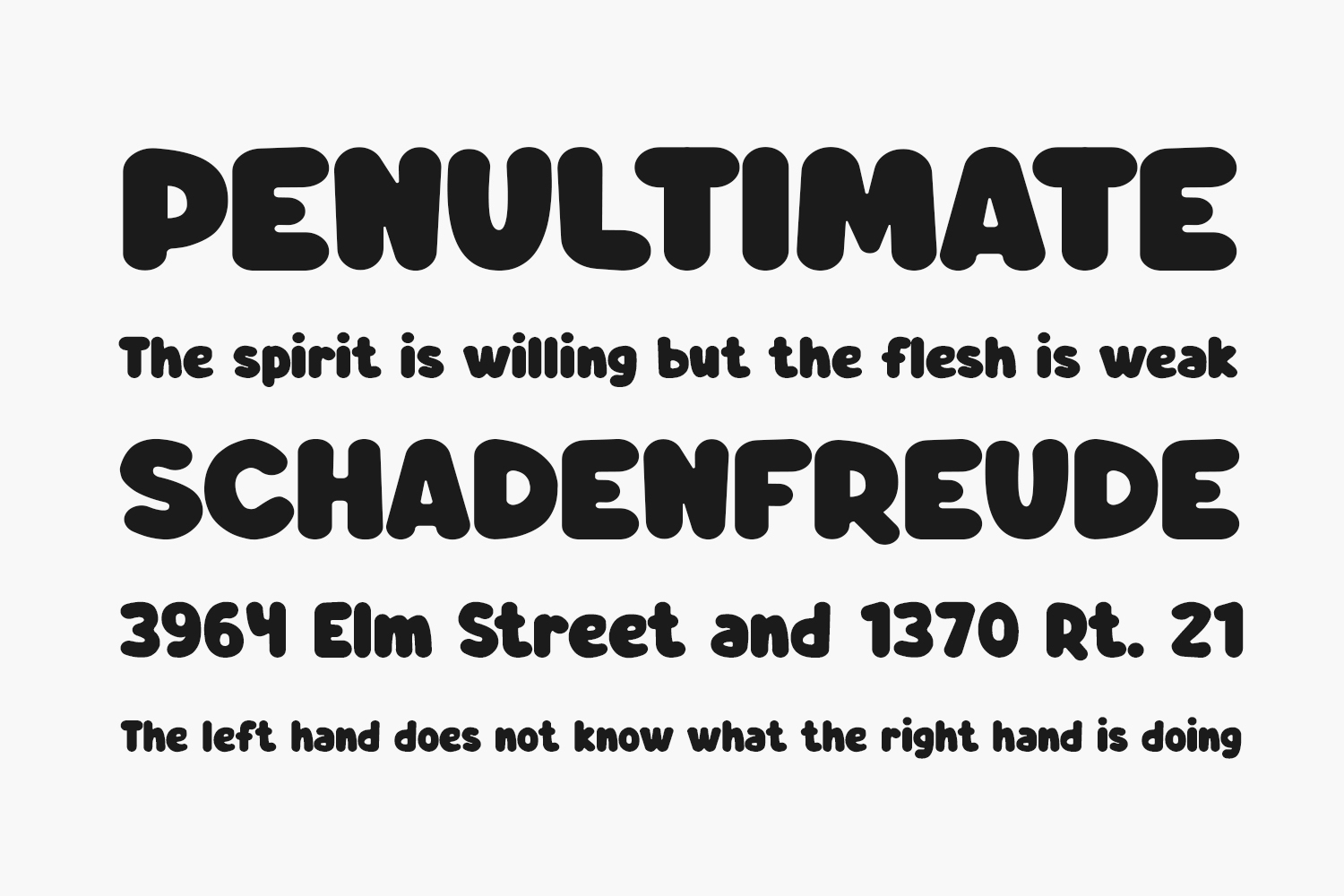
Introducing Bubbly Soda Free Font – the ultimate display font designed to infuse cuteness, friendliness, and playfulness into any project! Tailor-made for children’s books, online games, stationery, school supplies, posters, movie titles, YouTube covers, thumbnails, social media posts, and countless other creative endeavors. Elevate your designs with this delightful font by adding it to your library today, and watch as it sparks your imagination like never before! Get Bubbly Soda now and let the creativity flow. Bubbly Soda Free Font is free for personal use only. Please purchase the full version for commercial use.